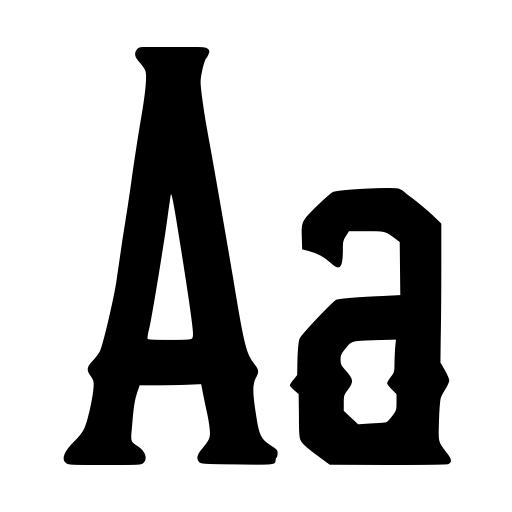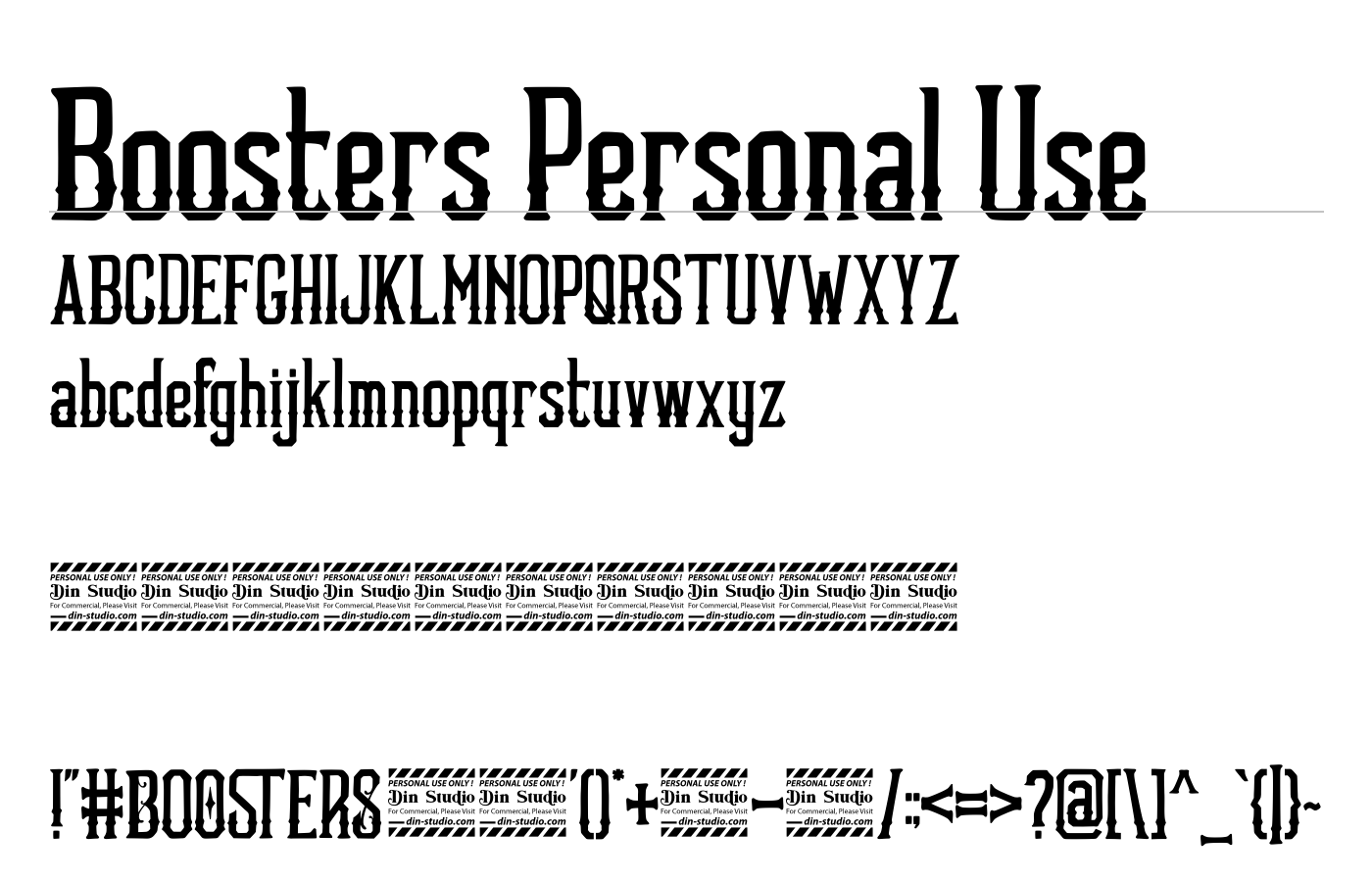
Boosters Personal Use is a condensed slab serif font with a vintage, industrial feel. It features sharp, blocky letterforms with medium stroke contrast and strong, unbracketed serifs that create a bold and sturdy presence ideal for headlines, posters, and branding that seek to evoke strength and retro charm. This distinctive typeface works well for attention-grabbing designs with a rugged yet refined character.
Boosters Personal Use Font
About Boosters Personal Use Font
| Font family | Boosters Personal Use Font |